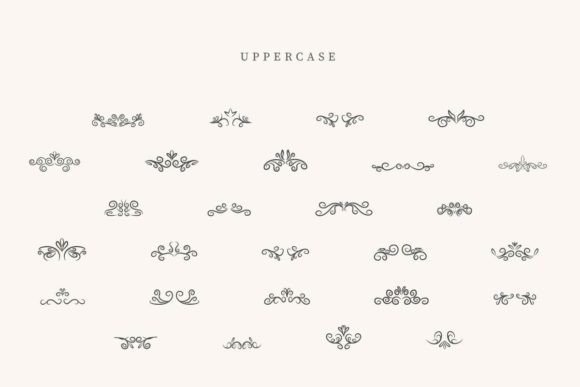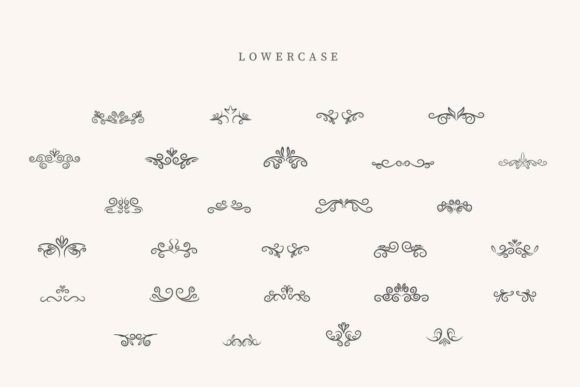
Introduction to Clamshell Divider Font
Have you ever found yourself staring at a blank page, trying to bring your creative vision to life? You’ve got a clear idea in your mind, but the right design elements are missing to make it truly shine. This is where the perfect design resource comes into play – and we’re excited to introduce you to the Clamshell Divider Font. This tastefully vintage dingbat font is designed to add a touch of classic elegance to your craft projects, elevating them to new heights of sophistication.
With its high-quality, intricately designed ornaments, the Clamshell Divider Font is the perfect addition to any creative project. Whether you’re working on a digital design, a print project, or a handmade craft, this versatile font will help you achieve a professional-looking finish. And the best part? It’s available for free download, making it an invaluable resource for designers of all levels.
Key Features of Clamshell Divider Font
- Unique Clamshell design element for creative project separators, adding a touch of elegance and sophistication
- Perfect for designers and artists looking for a distinctive and eye-catching design element to elevate their creative projects
Honest Review: Clamshell Divider Font
I recently stumbled upon the Clamshell Divider Font, and I must say it’s a unique addition to any creative project. The font features a beautiful, hand-drawn design that adds a personal touch to any text. One of the standout features of this font is its transparent background, making it easy to layer over images or other design elements. ✨
What I love about the Clamshell Divider Font is its versatility. It can be used in a variety of contexts, from weddings and baby showers to events and parties. The font is also a free download, making it an excellent design resource for those on a budget. ✨
The font is available in a range of weights and styles, allowing you to customize your design to suit your needs. However, I did find that the font can be a bit difficult to read in smaller sizes. ⚠️
Overall, I’m impressed with the Clamshell Divider Font. Its unique design and high-quality typography make it a valuable addition to any designer’s toolkit. I would definitely recommend it for any creative project that requires a touch of elegance and sophistication.
- Unique, hand-drawn design
- Available in a range of weights and styles
The Clamshell Divider Font is a high-quality design resource perfect for creative projects. It features a unique, modern design with a transparent background, making it easy to integrate into any project.
To get the most out of the Clamshell Divider Font, use it to create contrast and add visual interest to your designs. You can also experiment with different font sizes and colors to create a unique look.
The Clamshell Divider Font is perfect for a variety of creative projects, including: